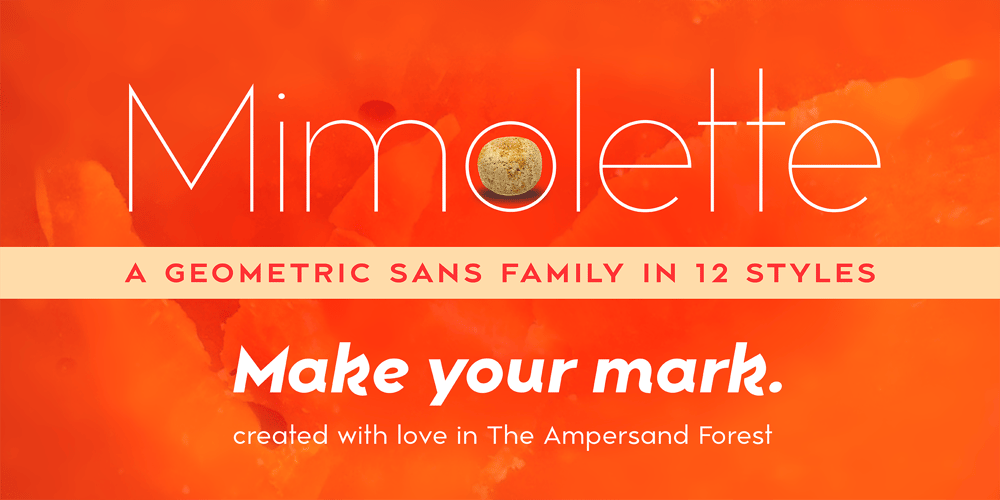
Mimolette Font Family was designed by DC Scarpelli and published by The Ampersand Forest. Mimolette contains 12 styles and family package options. Every designer has a favorite geometric sans serif. For a century, they’ve been a staple for text that needs to be clear, strong, architectural, and objective. Mimolette offers a sans serif family that’s great for text and display alike—the panache of Neutraface, the readability of Avenir, the sleekness of Avant Garde, the strength of Mark, the architecture of Gotham, and the classic lines of Futura—but she’s entirely her own creature, and she’s designed to offer maximum versatility and beauty at an affordable price. And she’s got some nifty features, too! Her italic is a true italic, not just an oblique. Are the uberpointy diagonals (AMVW) not working in a particular context? Activate Stylistic Set 01, and they become flat-topped! Want more playful cursive alternatives in the italic? Activate Stylistic Set 02, and you’ve got them in the A, E, K, Q, R, and k. She’s got true small caps in all styles! She’s got true fractions in all styles, as well as oldstyle (small cap) and lining numerals, in both tabular and proportional widths. Best of all, perhaps, Mimolette was made with love, as always, by yer pals in the Ampersand Forest.